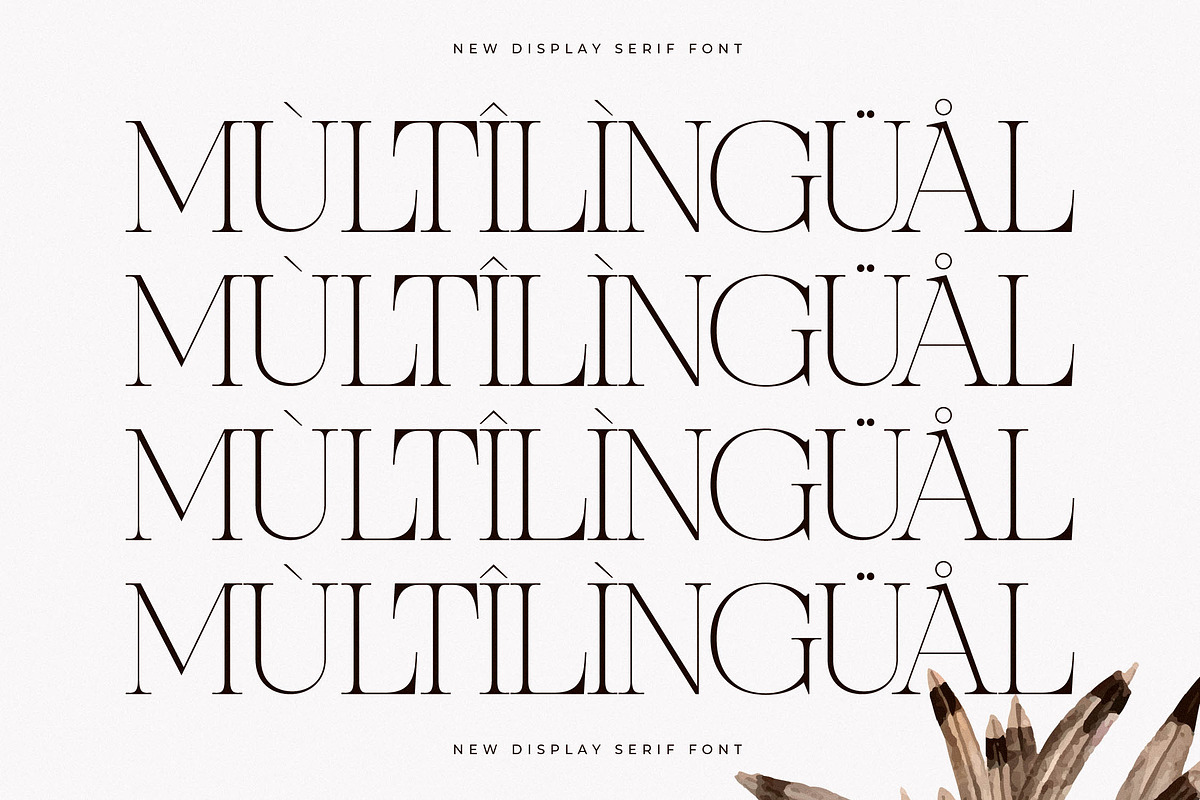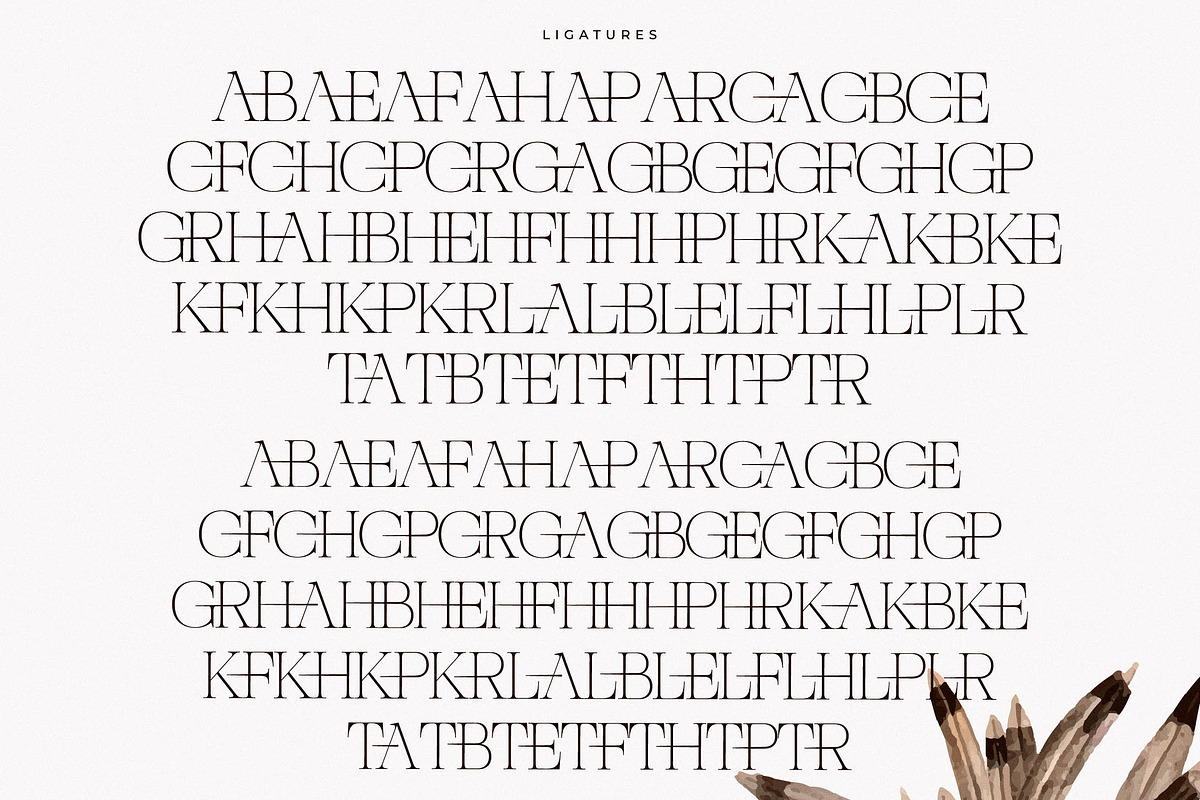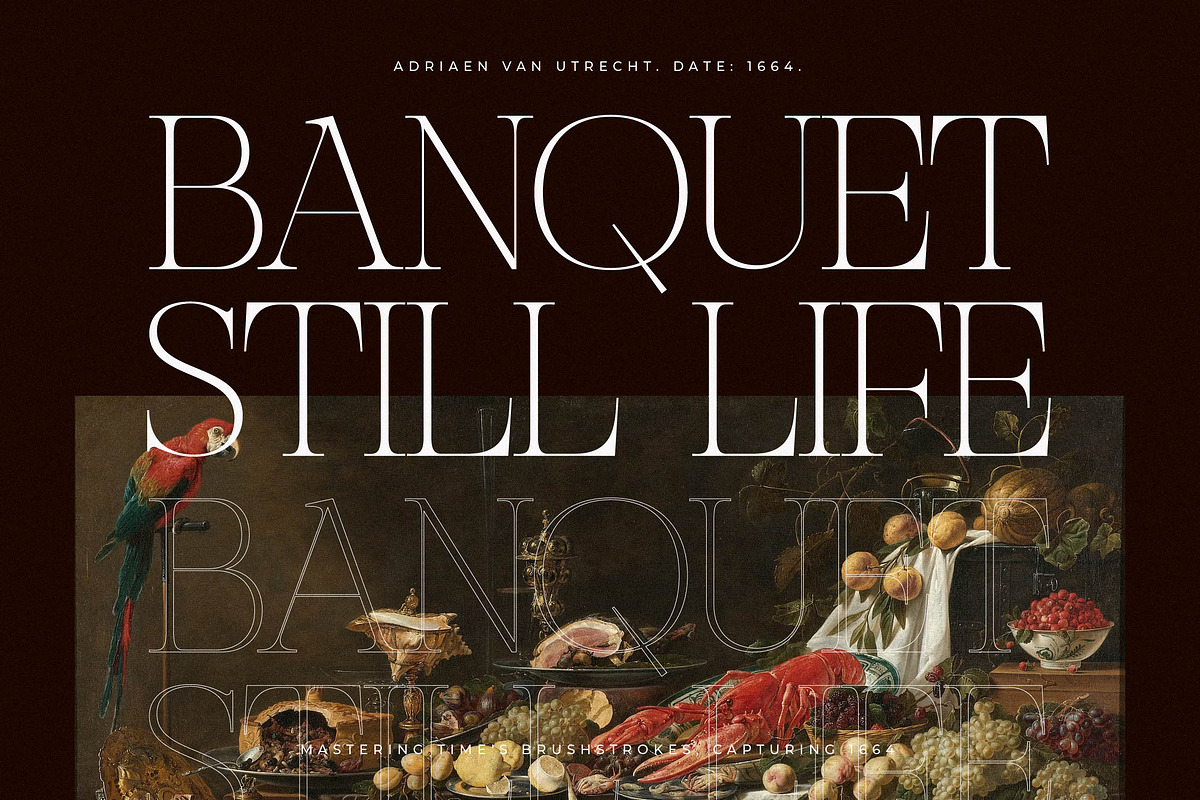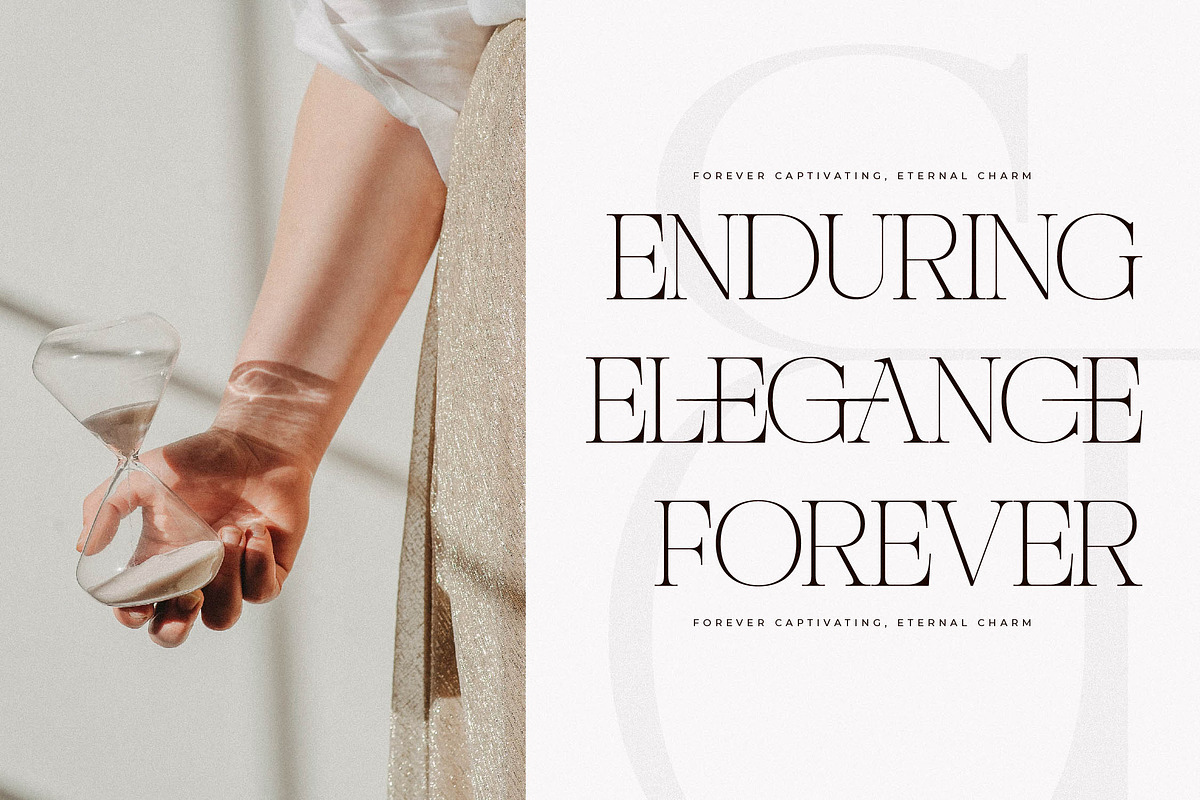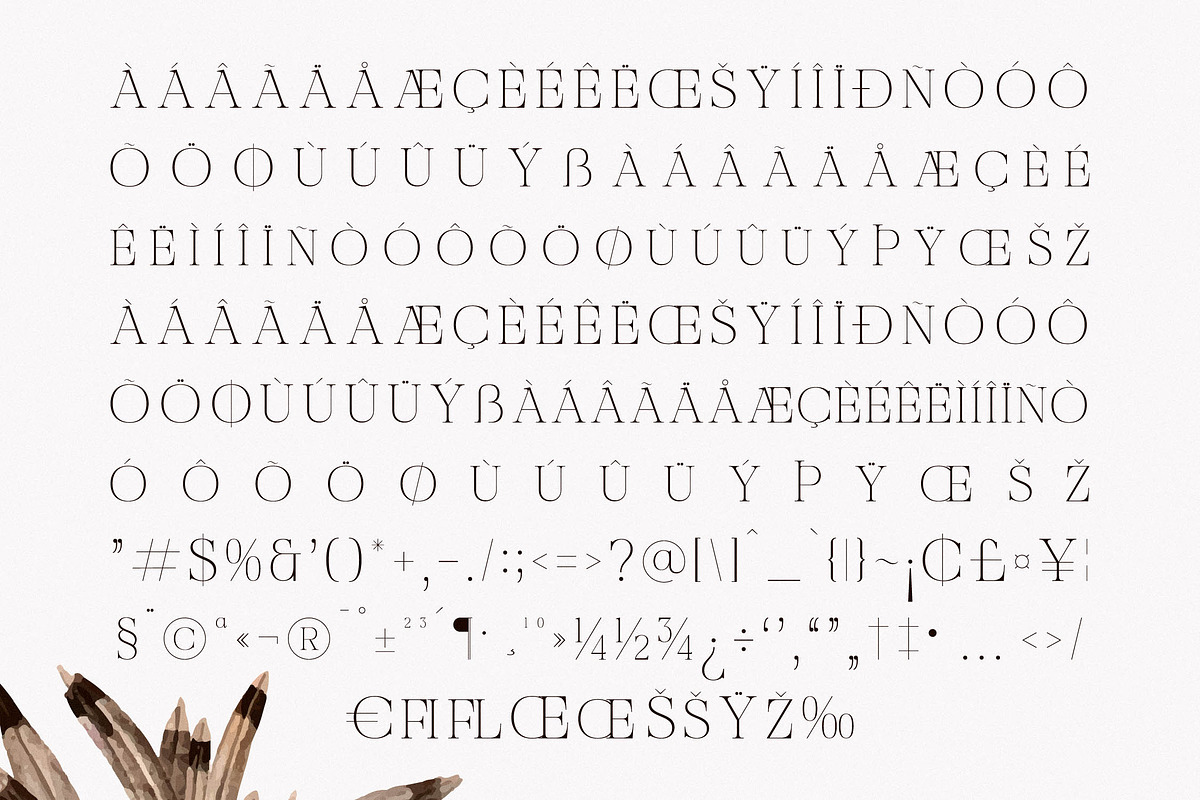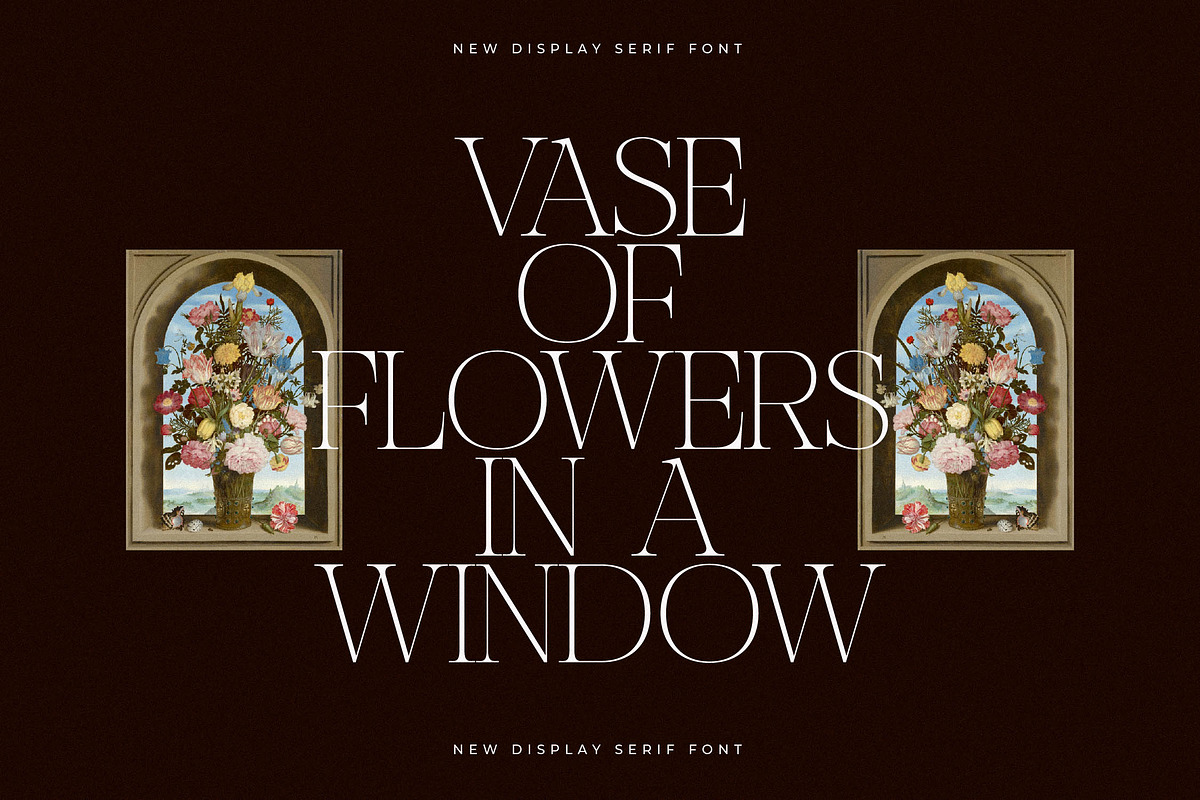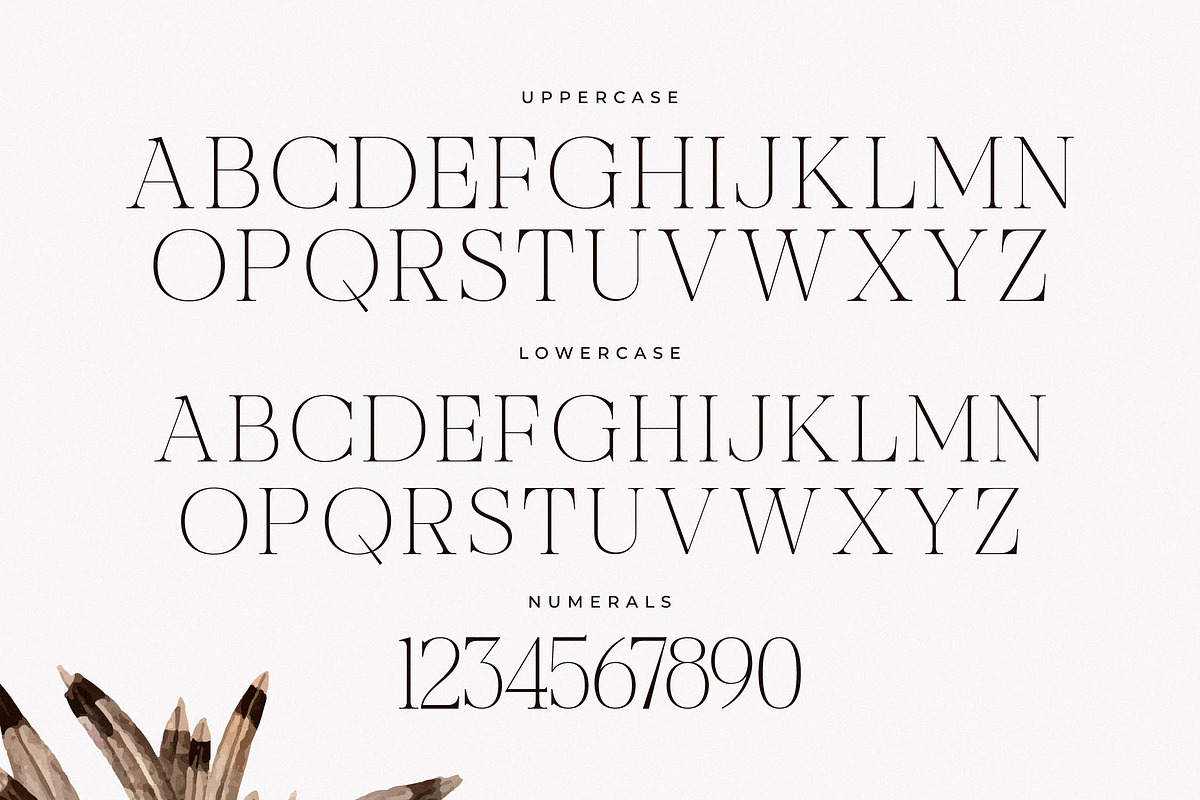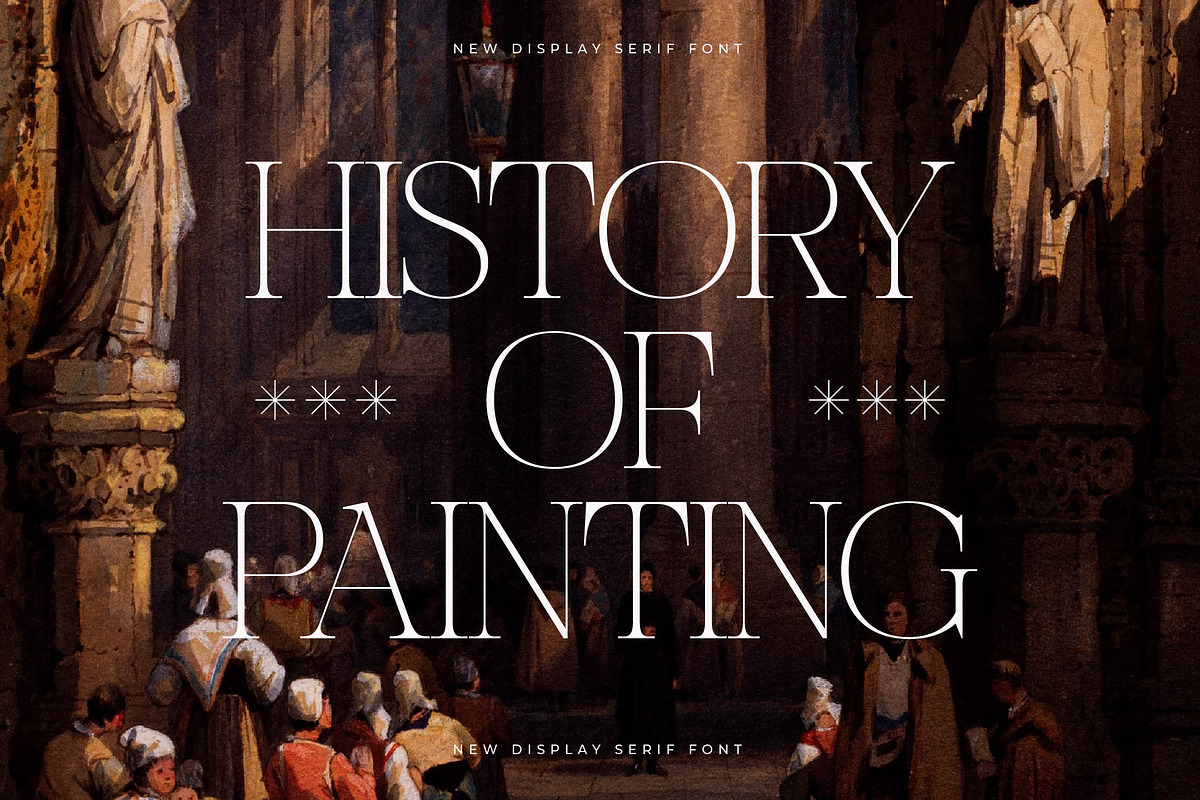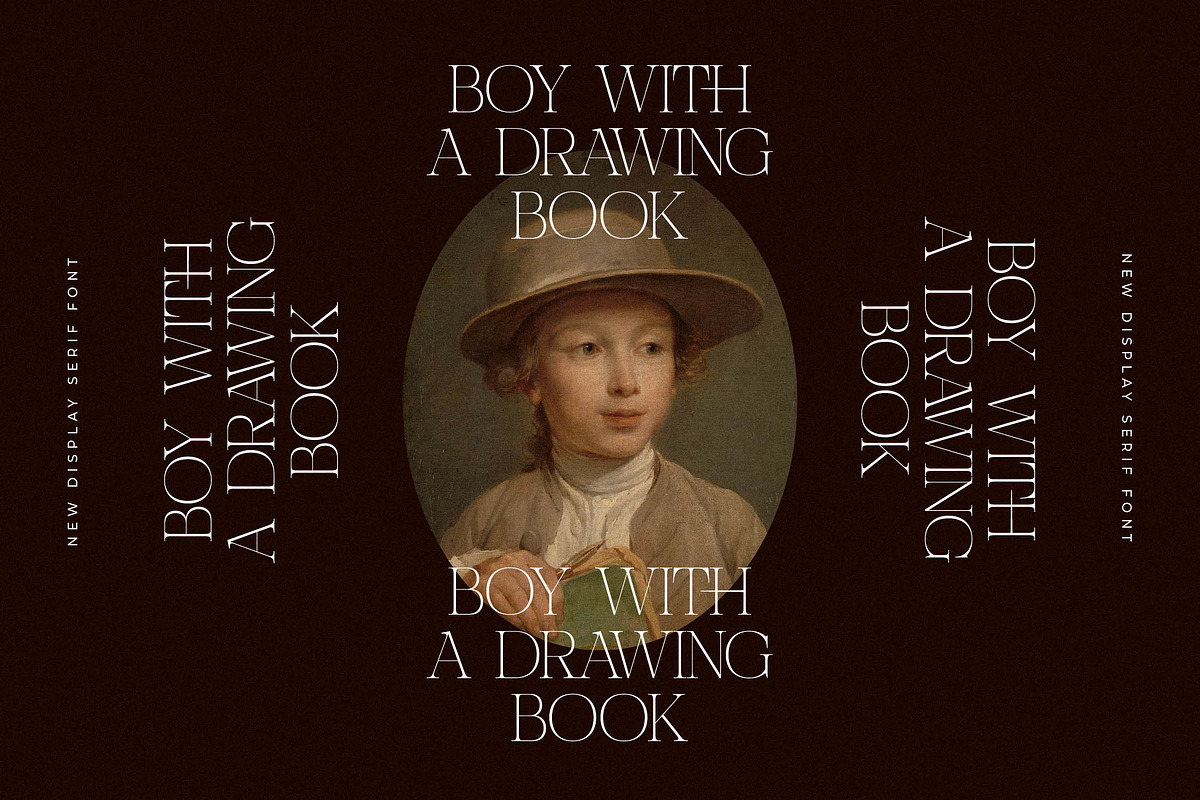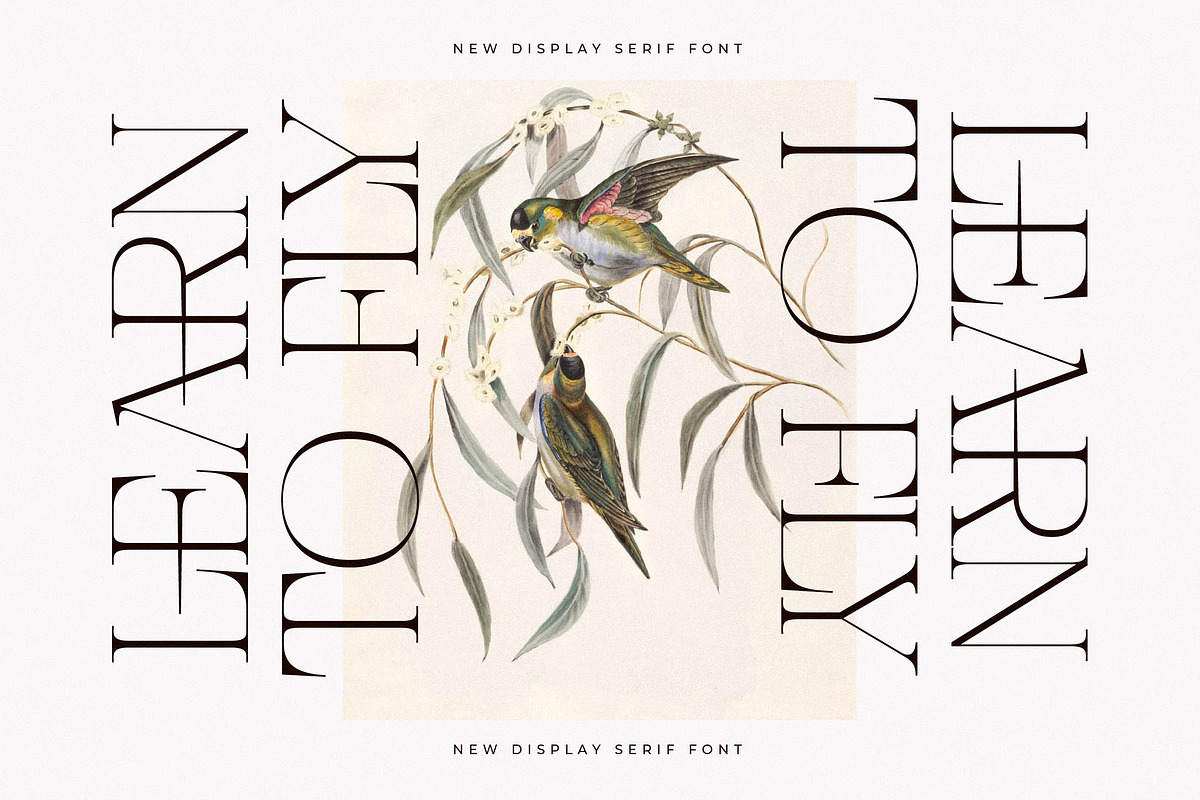
Nocashe New Display Serif Font
Proudly present Nocashe Typeface , created by Storytype, A serif modern and classic typeface that has own unique style & modern look. This typeface is perfect for an elegant & luxury logo, book or movie title design, fashion brand, magazine, clothes, lettering, quotes, and so much more.